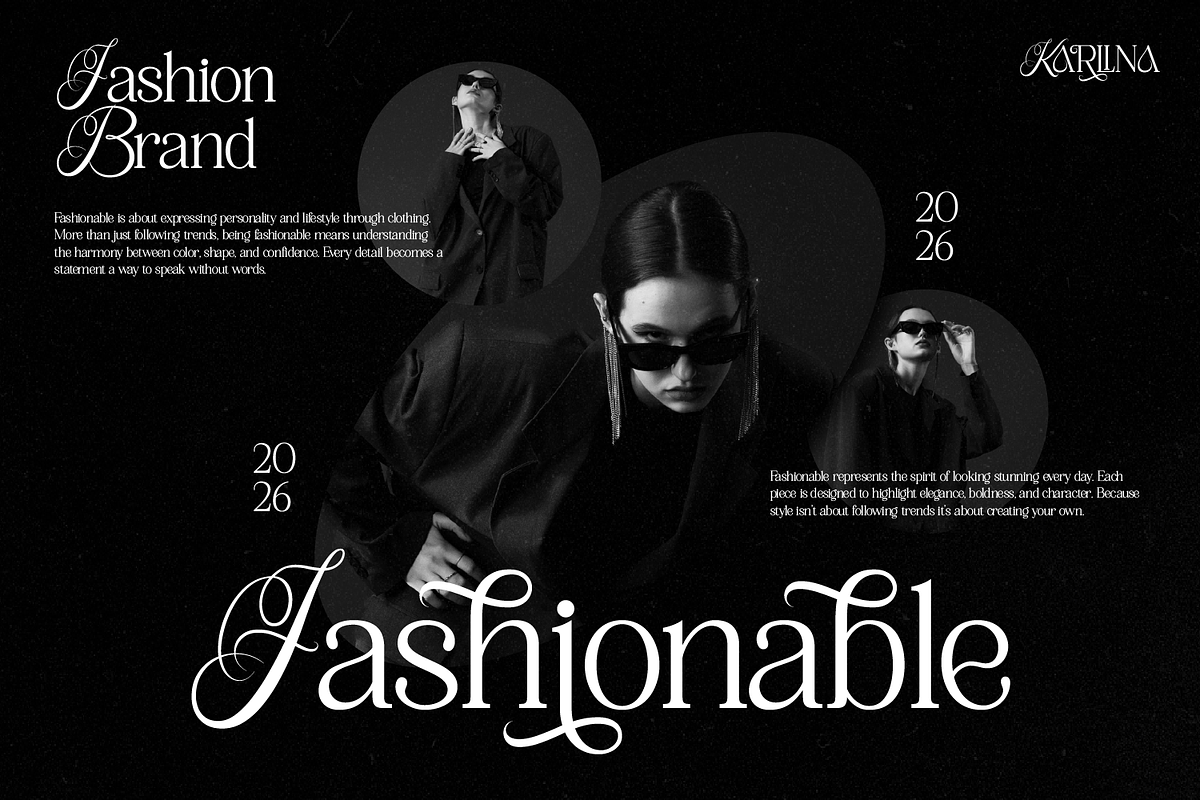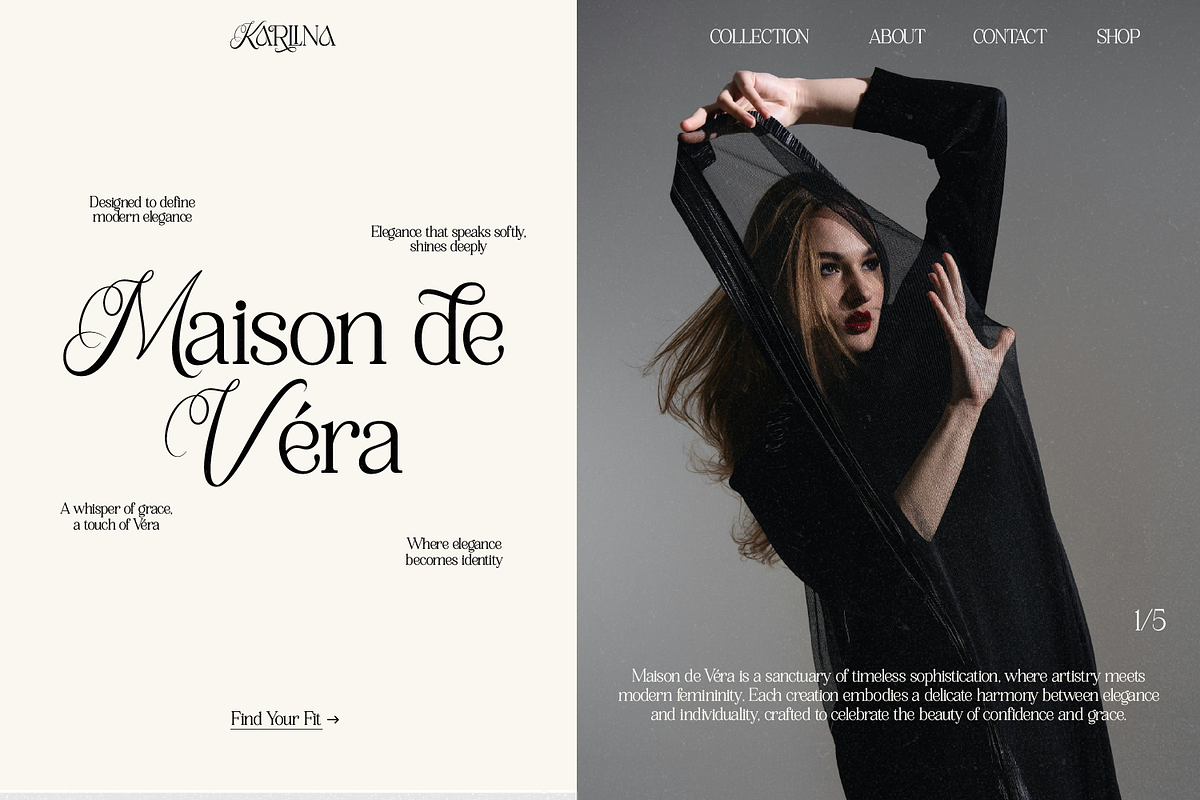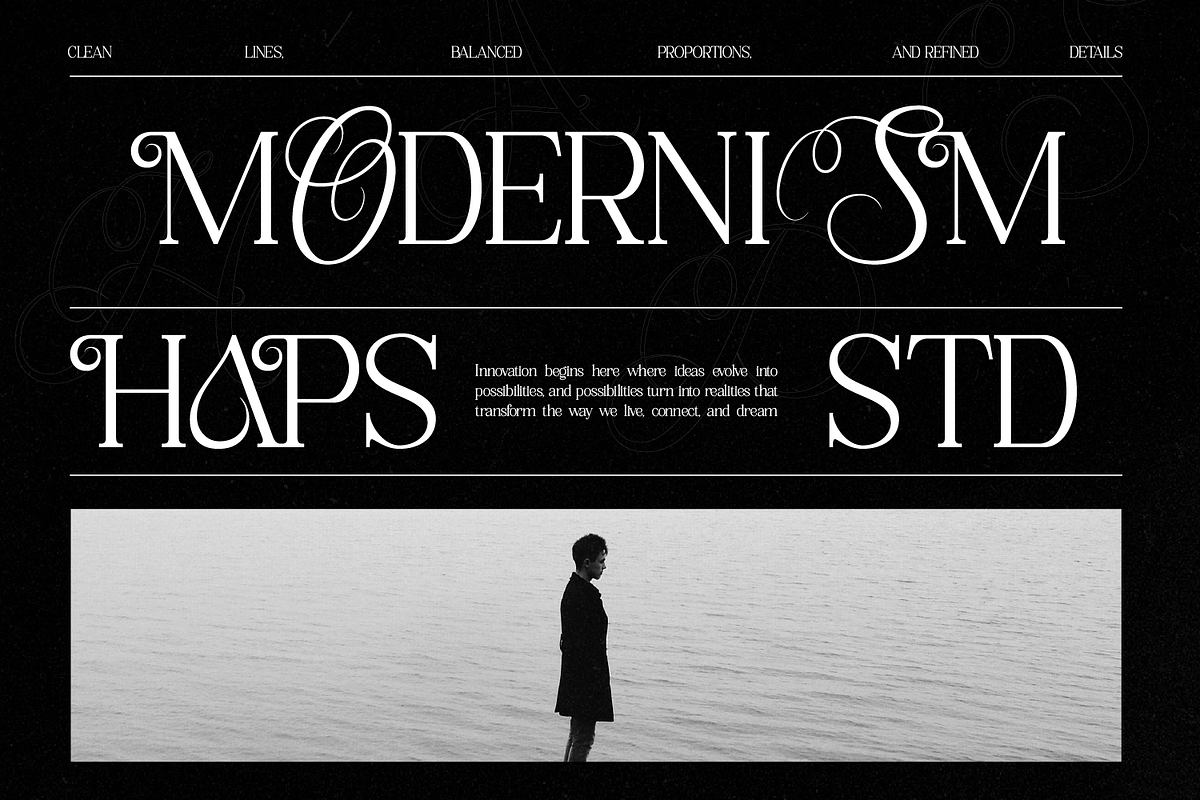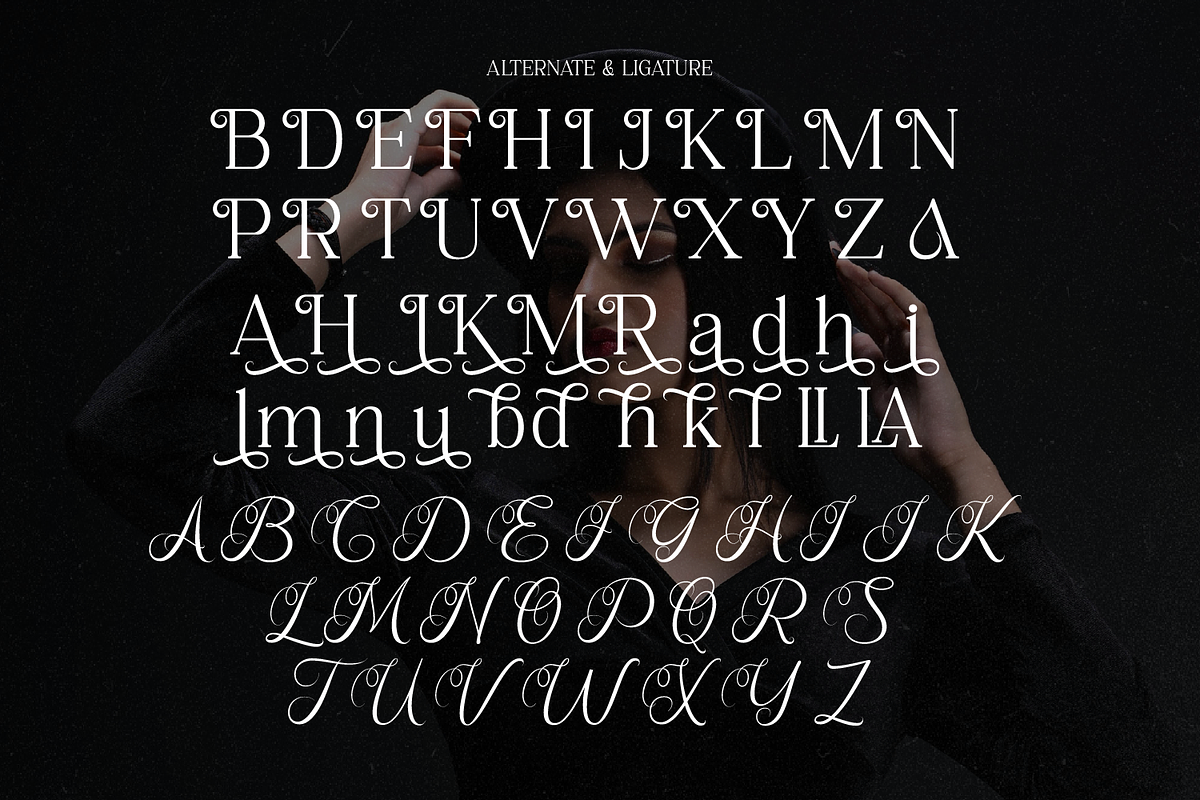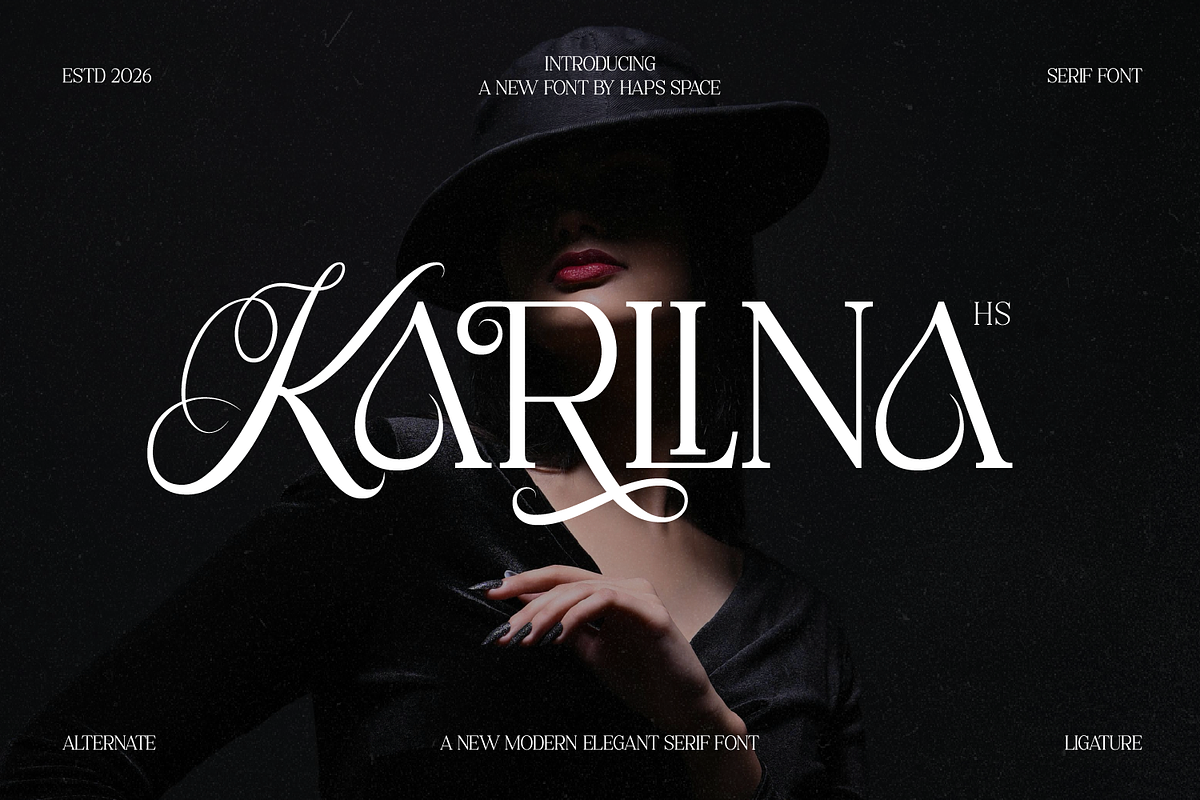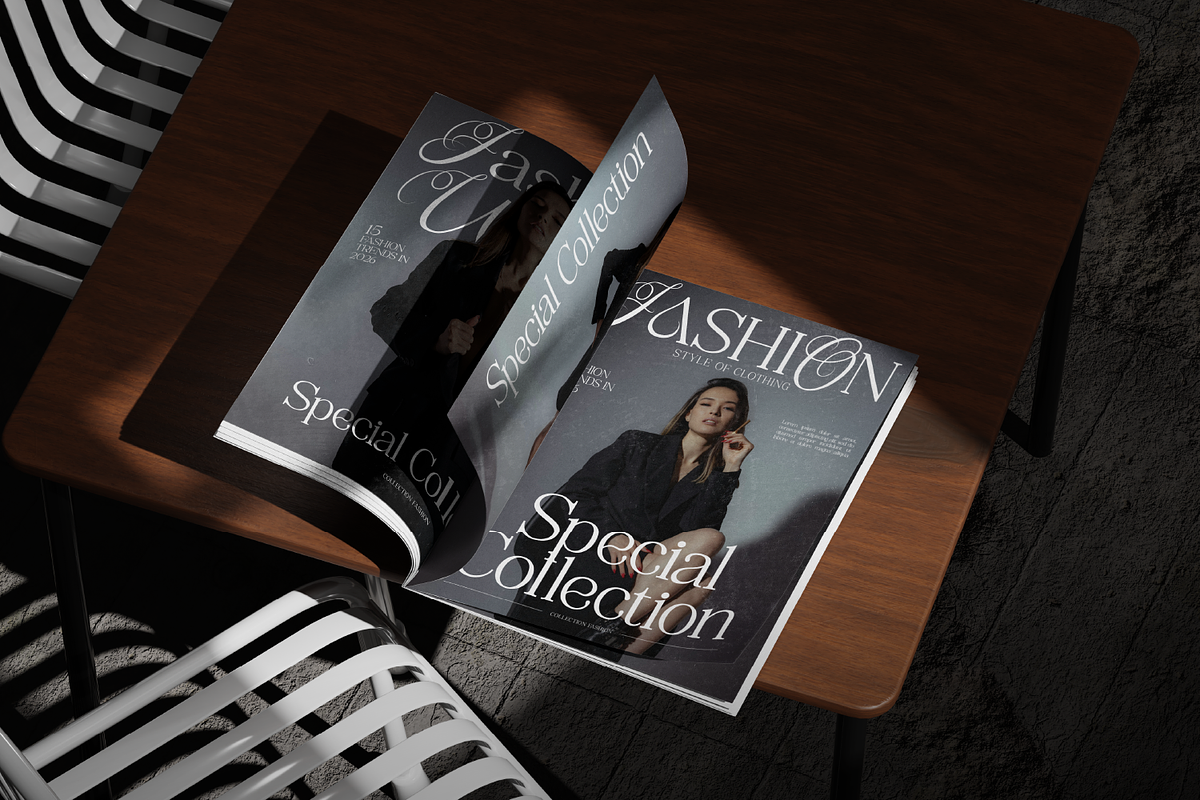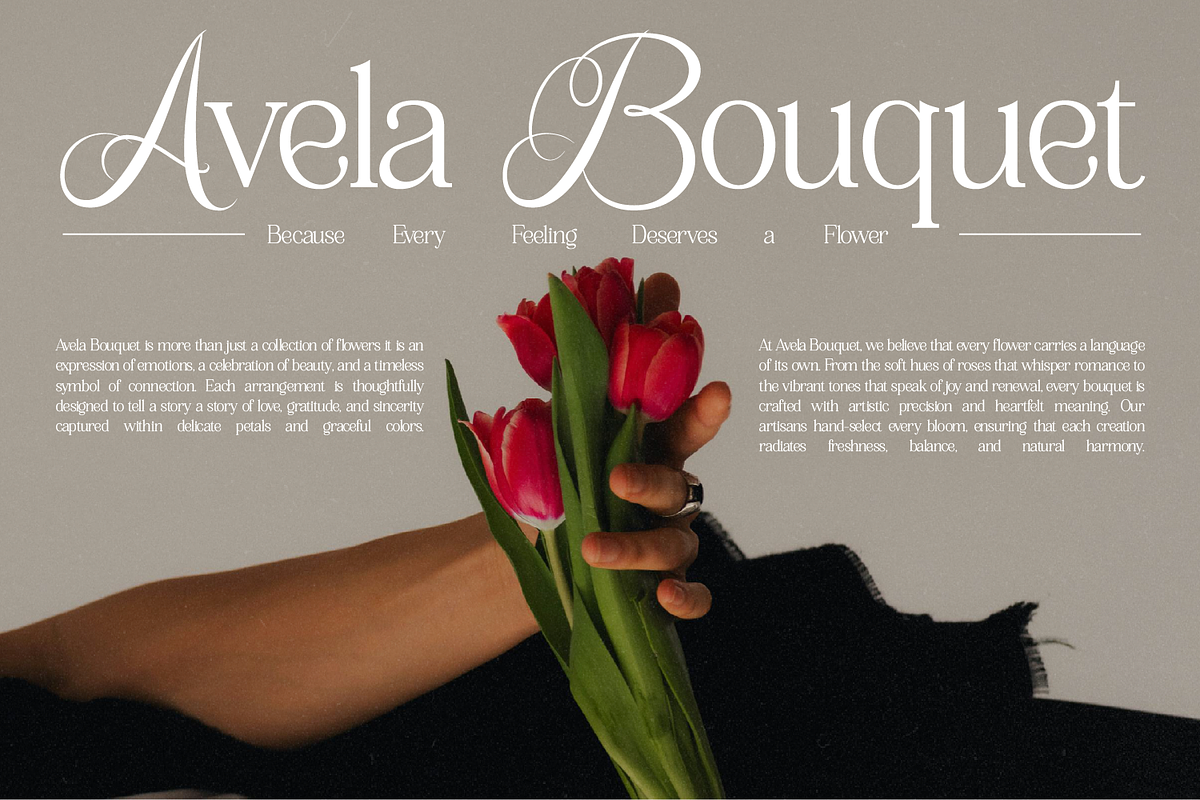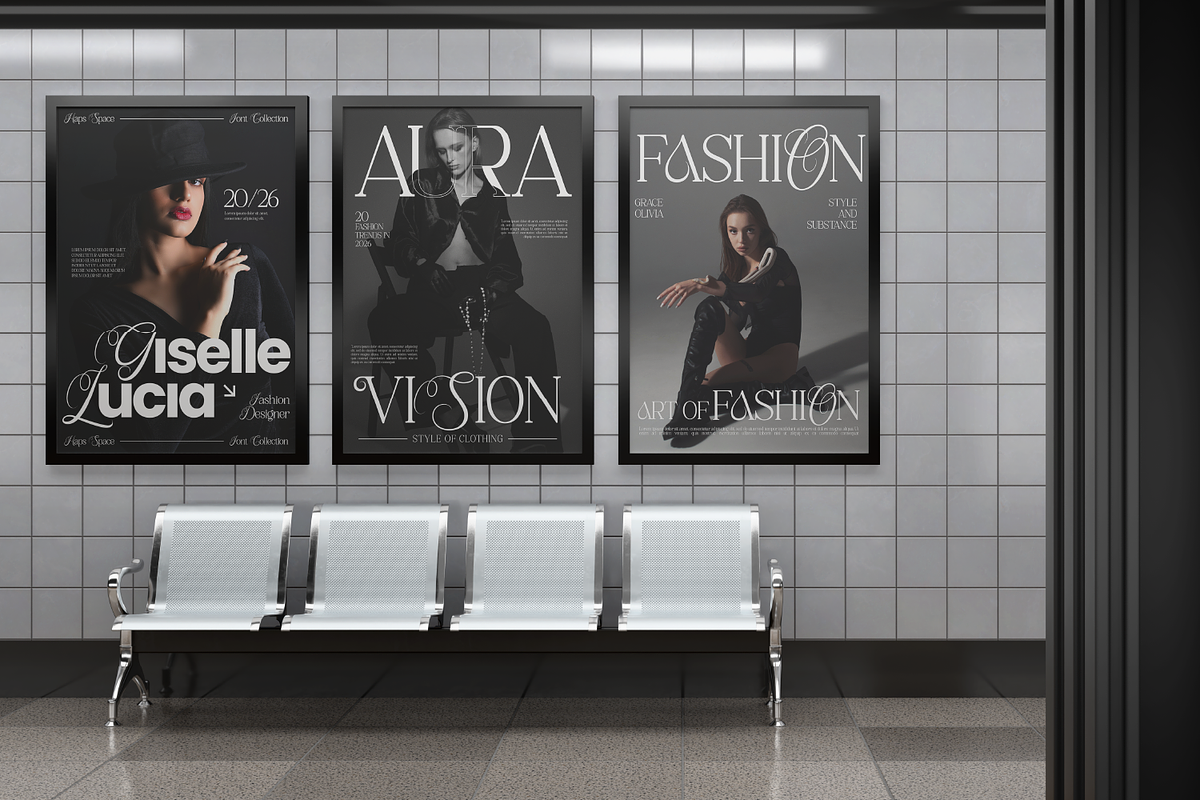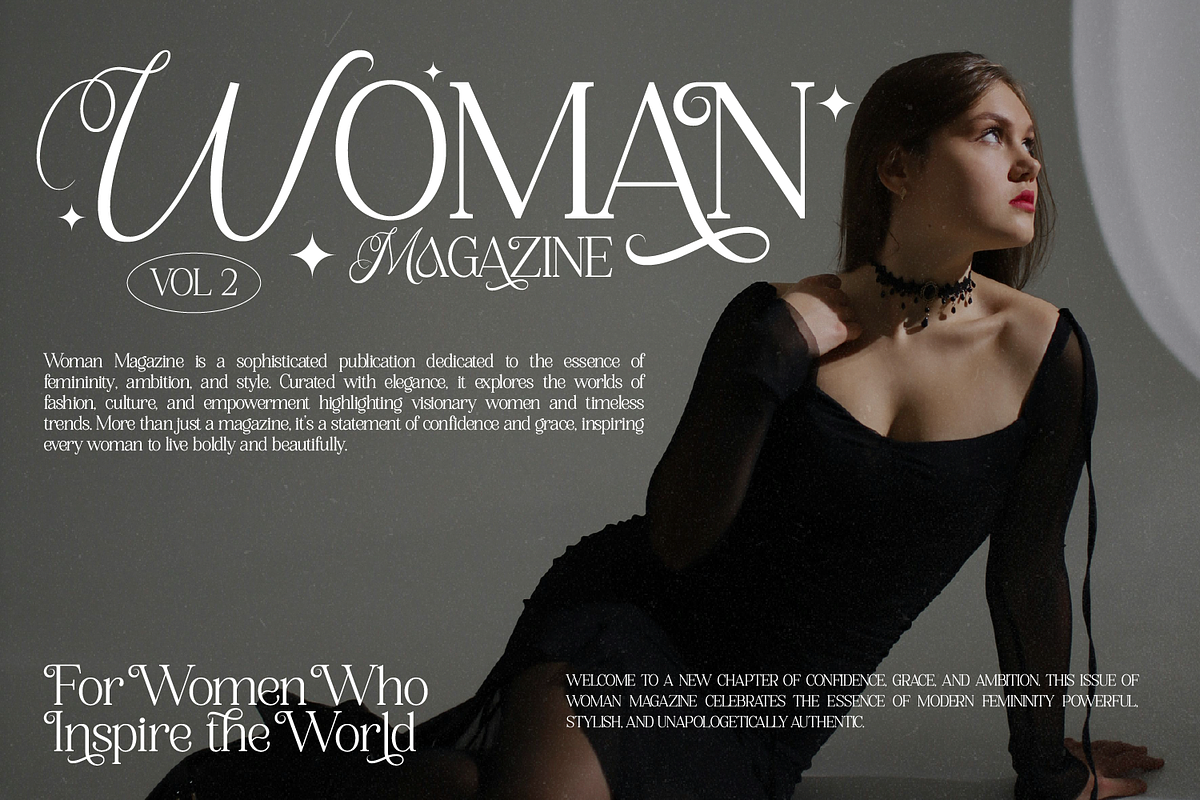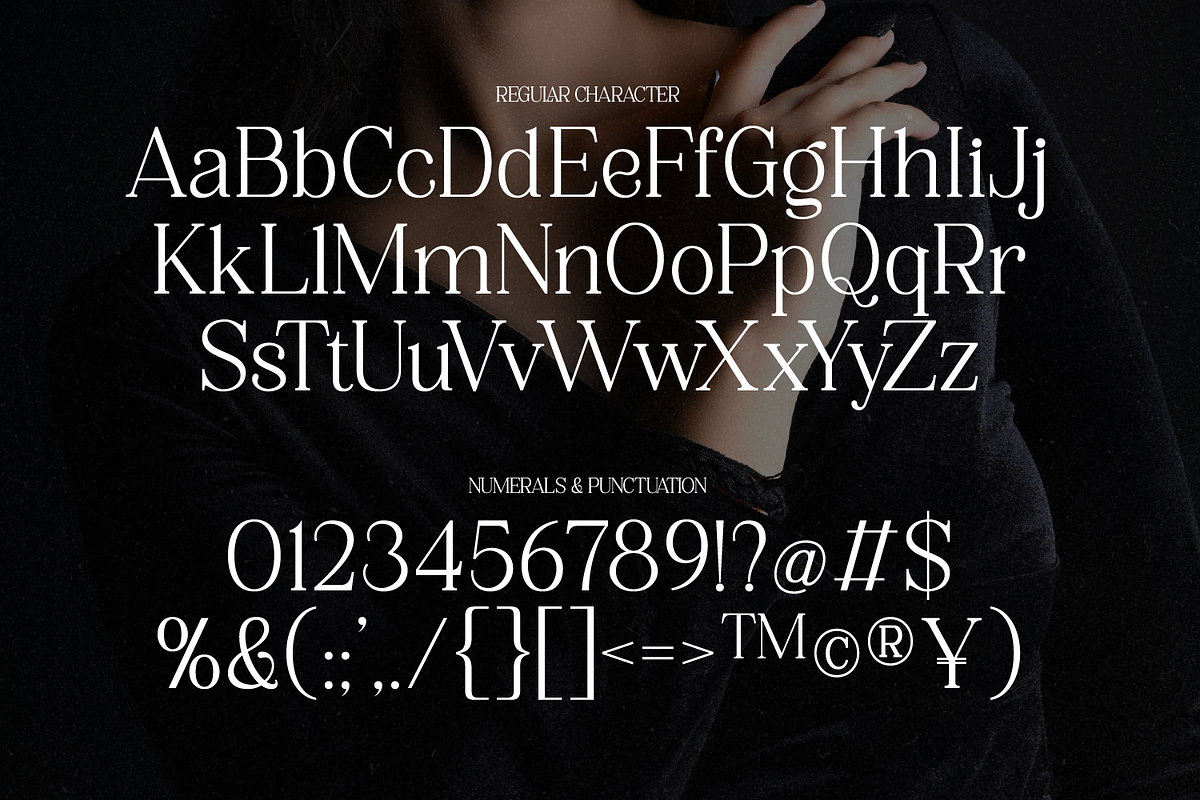
Karlina Modern Elegant
Karlina is a modern elegant serif font that blends classic beauty with contemporary sophistication. Featuring refined letterforms, high contrast strokes, and graceful decorative swashes, this typeface delivers a luxurious and stylish look. Its delicate details and smooth curves create a timeless aesthetic, perfect for high-end design projects.
Karlina is ideal for branding, logos, fashion editorials, wedding designs, invitations, and premium packaging that require a classy and elegant typographic feel.
* Unique Letterforms